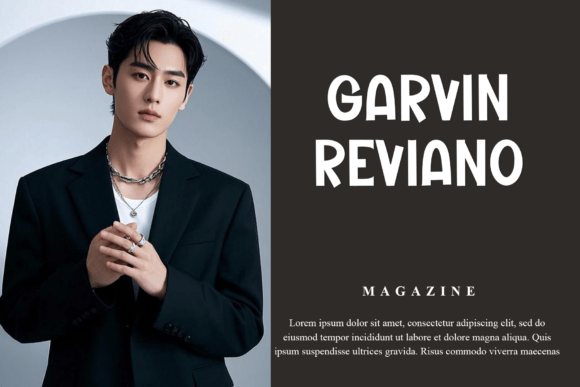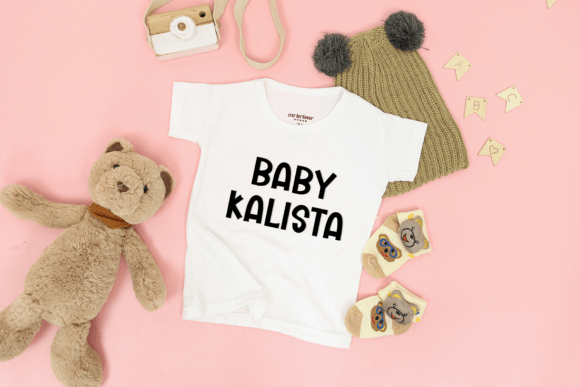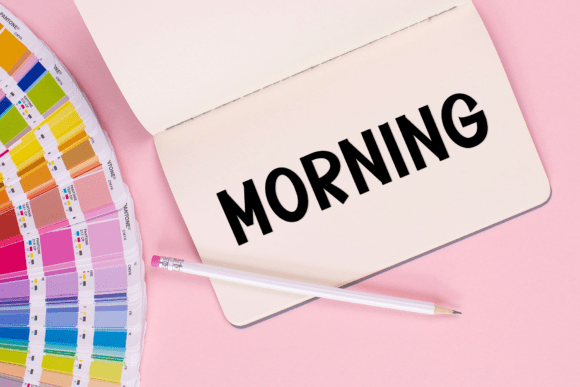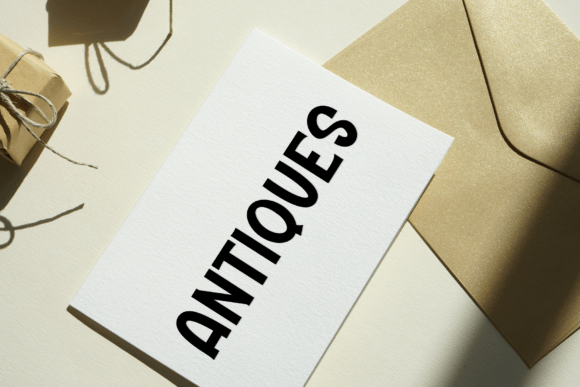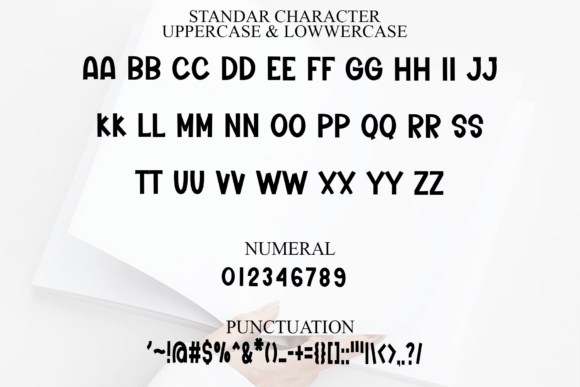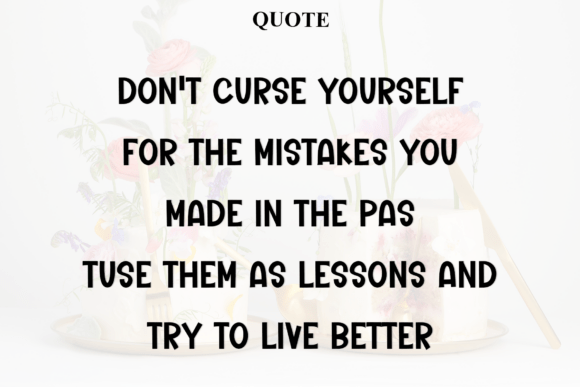
Introduction to Minimalist Aesthetic Font Font
Fonts play a crucial role in design, and the Minimalist Aesthetic Font font is a typeface that brings both character and versatility to any project. Whether you’re working on a branding project, a website, or a print design, the Minimalist Aesthetic Font font offers a unique style that can elevate your work.
Minimalist Aesthetic is a festive and merry typeface that captures the spirit of the holiday season.
With its decorative elements and whimsical flair, it adds a touch of enchantment to your designs Perfect for greeting cards, gift tags, and holiday-themed projects, this font brings a cheerful and nostalgic ambiance to your words.
Key Features of Minimalist Aesthetic Font Font
Why Choose Minimalist Aesthetic Font Font?
The Minimalist Aesthetic Font font is more than just a typeface – it’s a design tool that helps you communicate your message with style and clarity. Its unique character set and versatile design make it suitable for a wide range of applications, from elegant invitations to bold headlines.
With its carefully crafted letterforms and balanced proportions, the Minimalist Aesthetic Font font ensures readability and visual appeal across all mediums.
What makes Minimalist Aesthetic Font font special?
The Minimalist Aesthetic Font font stands out with its unique design, exceptional readability, and versatility across various design applications.